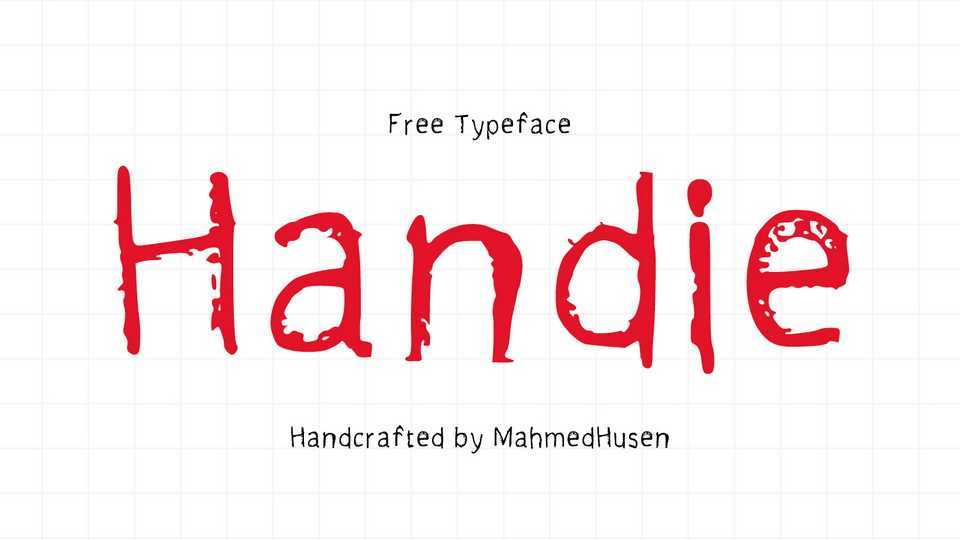
Download Handie is a handcrafted typeface with a rough distressed texture. Handie is perfect to add a casual, informal feel to any project.
Designer: MahmedHusen GulamAhmed